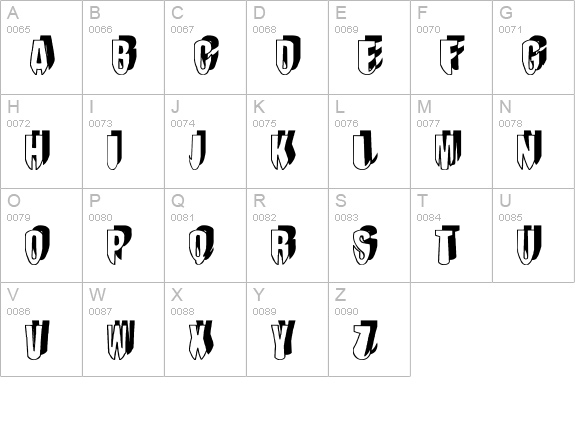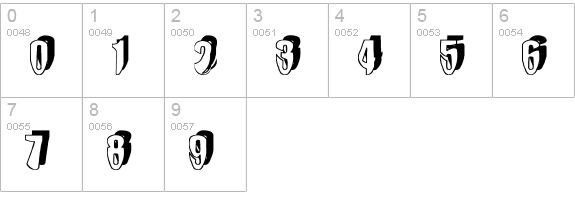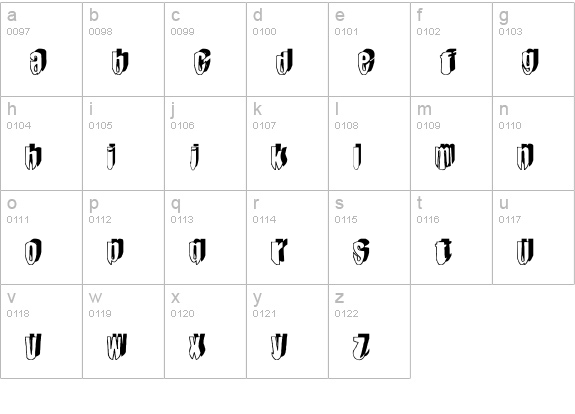
mashy DroopShadow Font Details
Introducing the mesmerizing mashy DroopShadow font, a captivating typeface that effortlessly blends elegance and creativity. This unique font is designed to make a bold statement, with its distinct shadowed effect that adds depth and dimension to any project. With its intricate and detailed letterforms, mashy DroopShadow font is perfect for a wide range of design applications. Whether you're creating eye-catching logos, stunning headlines, or captivating social media graphics, this font will surely leave a lasting impression. One of the standout features of mashy DroopShadow font is its versatility. It seamlessly adapts to various design styles, effortlessly conveying a sense of sophistication and modernity. Its edgy yet refined aesthetic makes it suitable for both professional and personal projects, allowing you to bring your creative visions to life. And the best part? mashy DroopShadow font is completely free! That's right, this exceptional typeface is freely available to download at FontsMarket.com. Now you can add a touch of elegance and uniqueness to your designs without breaking the bank. Whether you're a seasoned designer or just starting out, mashy DroopShadow font is a must-have in your font library. So why wait? Explore the endless possibilities this font offers and unlock your creative potential today. Download mashy DroopShadow font for free at FontsMarket.com and embark on a typographic journey like no other.